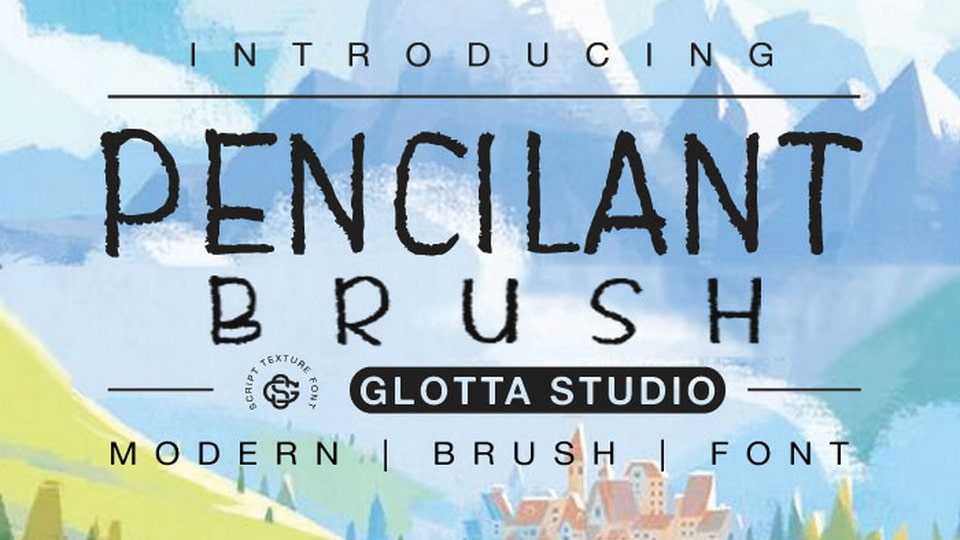
Download Pencilant font, a textured hand-lettered typeface that exudes the rustic and artistic charm of chalkboard lettering. Pencilant font is perfect for projects that demand a sense of nostalgia and a touch of handcrafted authenticity.